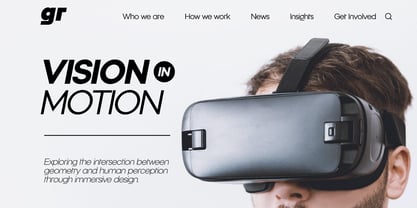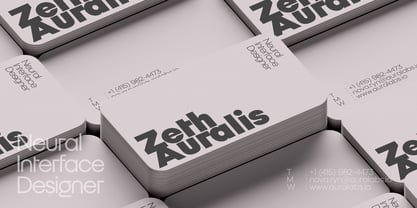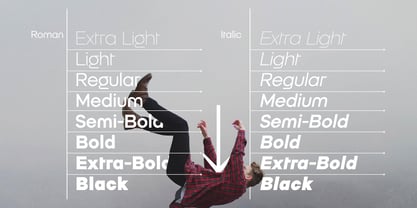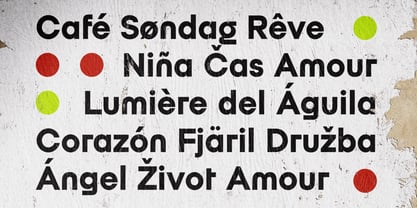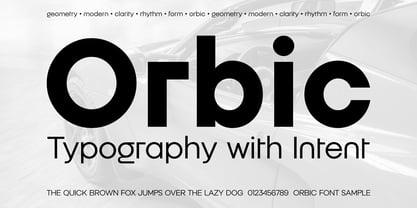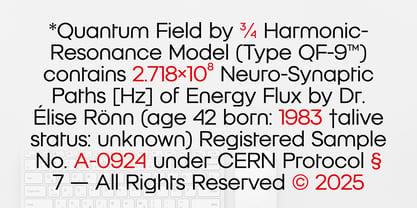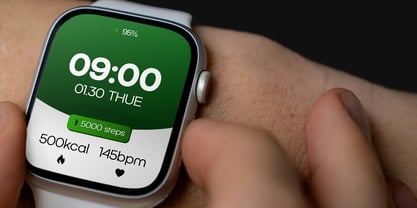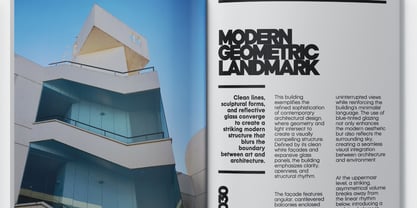
Orbic
by Hazztype
The Orbic Font Family was designed by Muhammad Hastian and published by Hazztype. Orbic contains 16 styles and family package options. More about this family
Orbic is a geometric sans serif designed with a balance between precision and personality. Every curve and counter is crafted to create visual rhythm and clarity, resulting in a typeface that feels both modern and approachable. Its clean structure and consistent geometry make it ideal for branding, editorial layouts, UI design, and contemporary visual identities that demand a strong yet friendly tone. The family includes Roman and Italic styles — providing full flexibility for contrast and hierarchy. Whether used for headlines, logos, or body text, Orbic delivers a confident, intentional voice that adapts seamlessly to any medium.